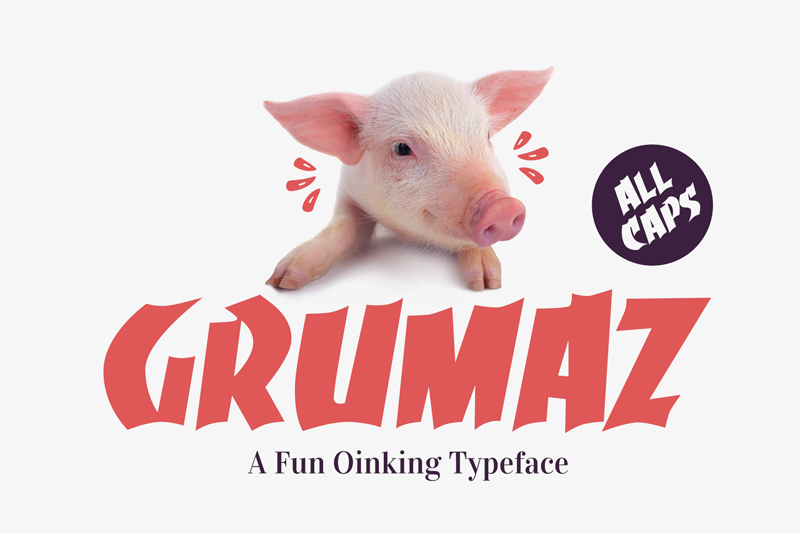
Preview and download Grumaz Font. Created by Mircea Bucsa in Fancy Comic styles with 100% Free license.
This font is 100% free for commercial use. It is a bold and funny display font with a twist. It's a massive all-caps, positively bold yet quite good-humored, suitable for all of your fun projects. The options that "Grumaz" provide are only limited by your imagination. Visit my website for more great premium graphic resources and freebies: https://lovepowerdesigns.com/ or follow my Instagram: https://www.instagram.com/lovepowerdesigns/ Thank you and enjoy :) |